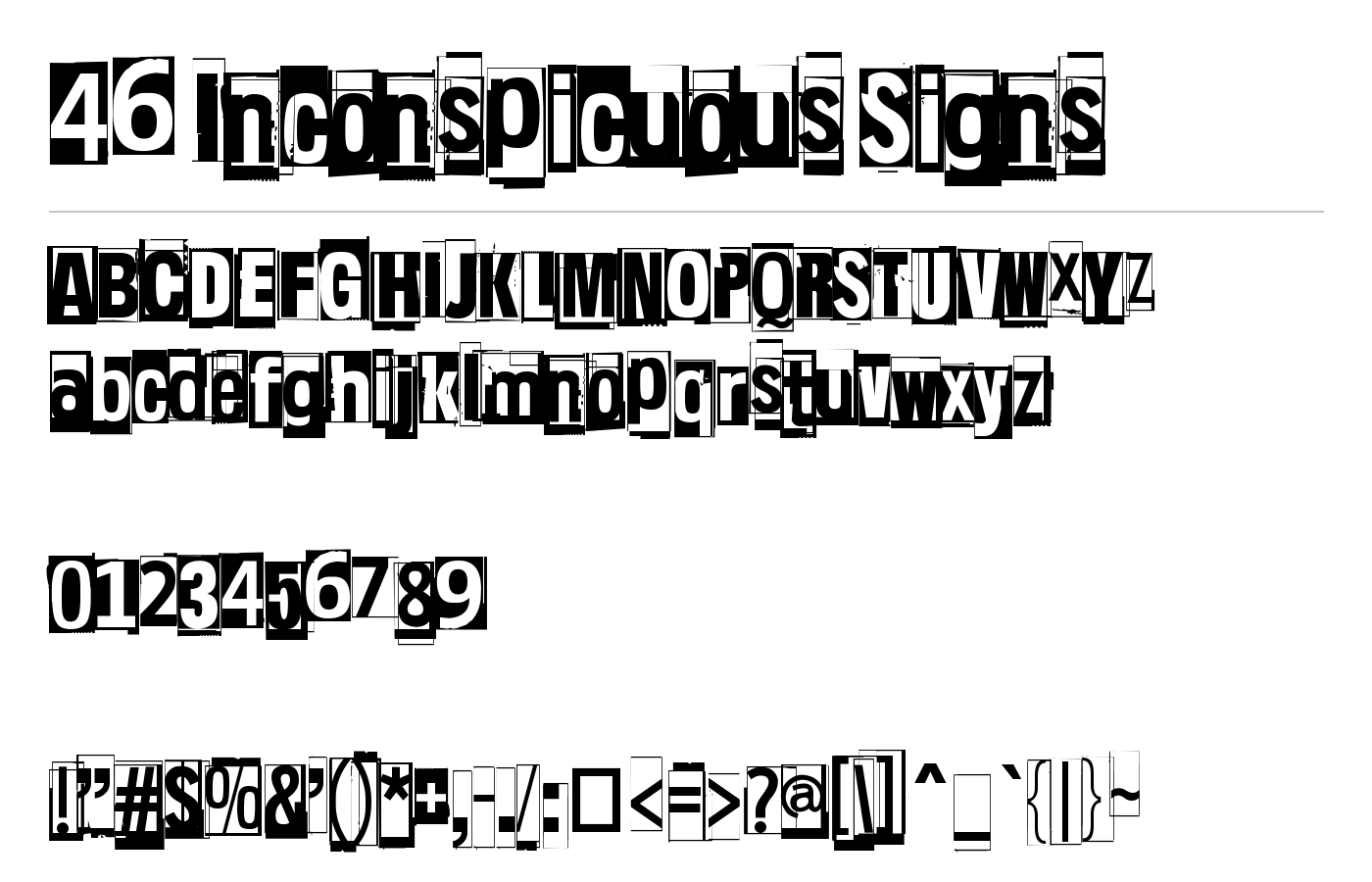
46 Inconspicuous Signs is a bold, condensed sans-serif font with a strong, impactful presence. Its tall, narrow letters and high contrast black-and-white blocks create a striking, modern, and urban feel, making it ideal for eye-catching logos, posters, and headlines that demand attention. This font works well where a bold statement is needed without any decorative distractions.
46 Inconspicuous Signs Font
About 46 Inconspicuous Signs Font
| Font family | 46 Inconspicuous Signs Font |